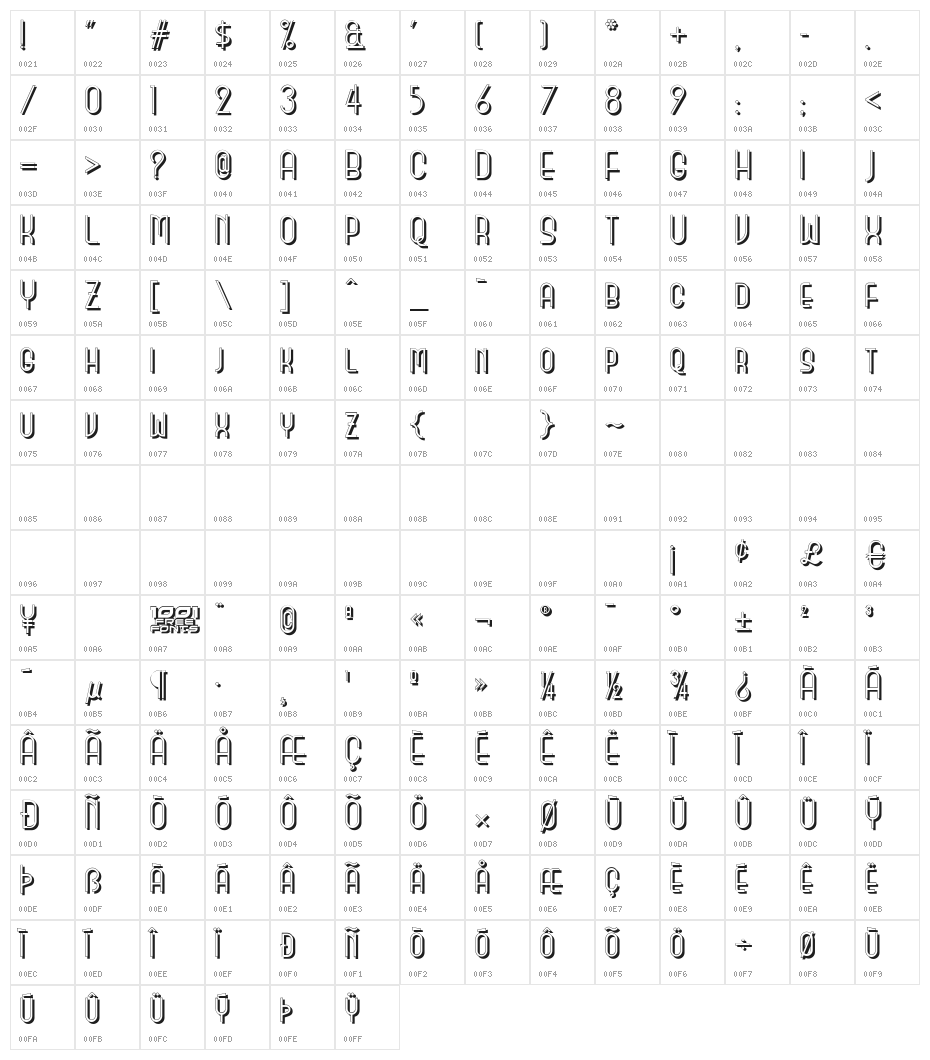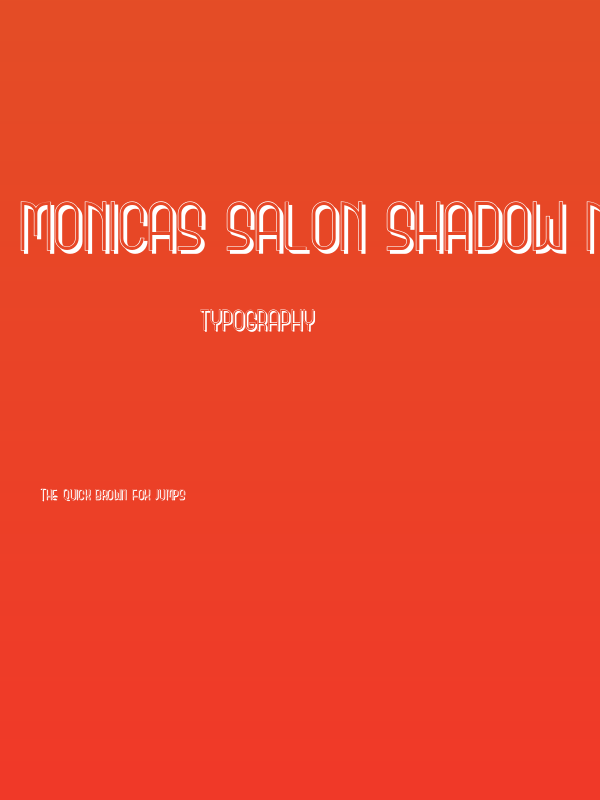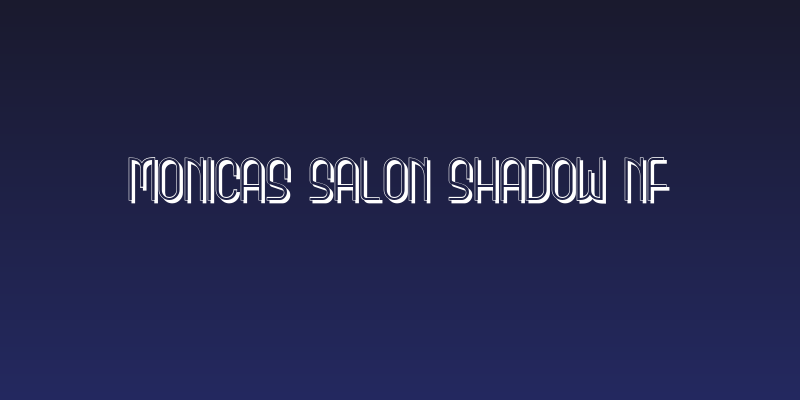
Monicas Salon Shadow NF Font
Monicas Salon Shadow NF Description
This font features a bold, decorative style with a distinct shadow effect that gives it a three-dimensional appearance. The characters are uppercase and lowercase, with numerals and a variety of special symbols. The design incorporates clean lines and geometric shapes, creating a modern yet retro aesthetic. The shadow effect adds depth and visual interest, making it ideal for eye-catching designs. The font's structure is consistent, with uniform stroke widths and a balanced layout. Its unique style is perfect for projects that require a standout, artistic touch.
Proposed ProjectsIdeal for posters, logos, headlines, and any design requiring a bold, artistic flair.